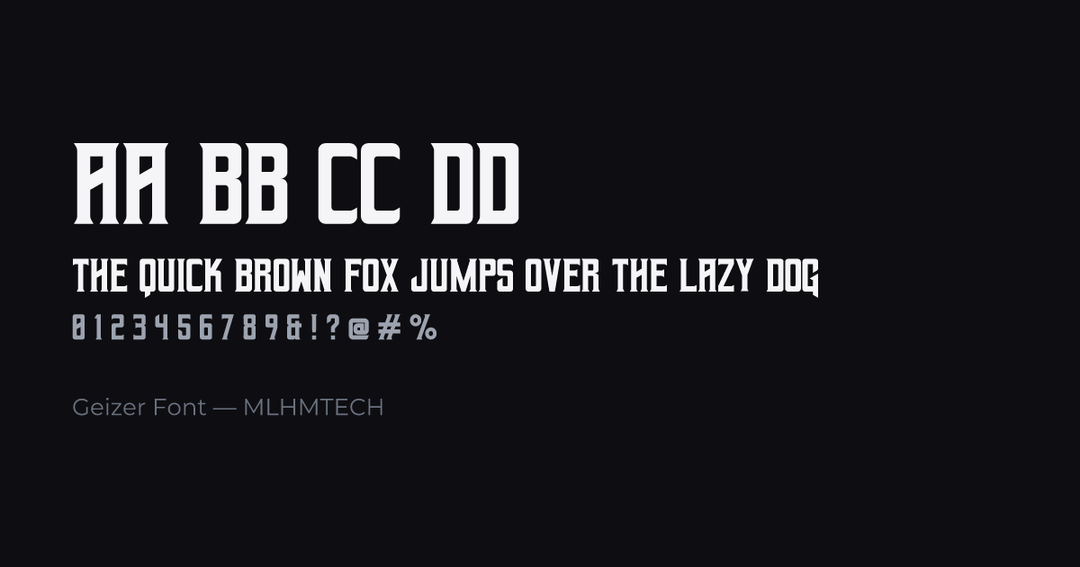
Geizer Font
Geizer is a bold, modern display font that adds character to headlines and branding. Perfect for creative projects that need a strong visual impact.
Geizer is a distinctive display typeface that combines geometric shapes with a touch of playfulness. Its bold weight and clean lines make it ideal for headlines, posters, and branding materials. The font's unique character ensures your designs stand out from the crowd.
This handpicked font is part of a curated collection, ensuring high quality and versatility. Whether you're working on a logo, social media graphic, or print design, Geizer brings a fresh, modern aesthetic. Its legibility at large sizes makes it a reliable choice for impactful visual communication.